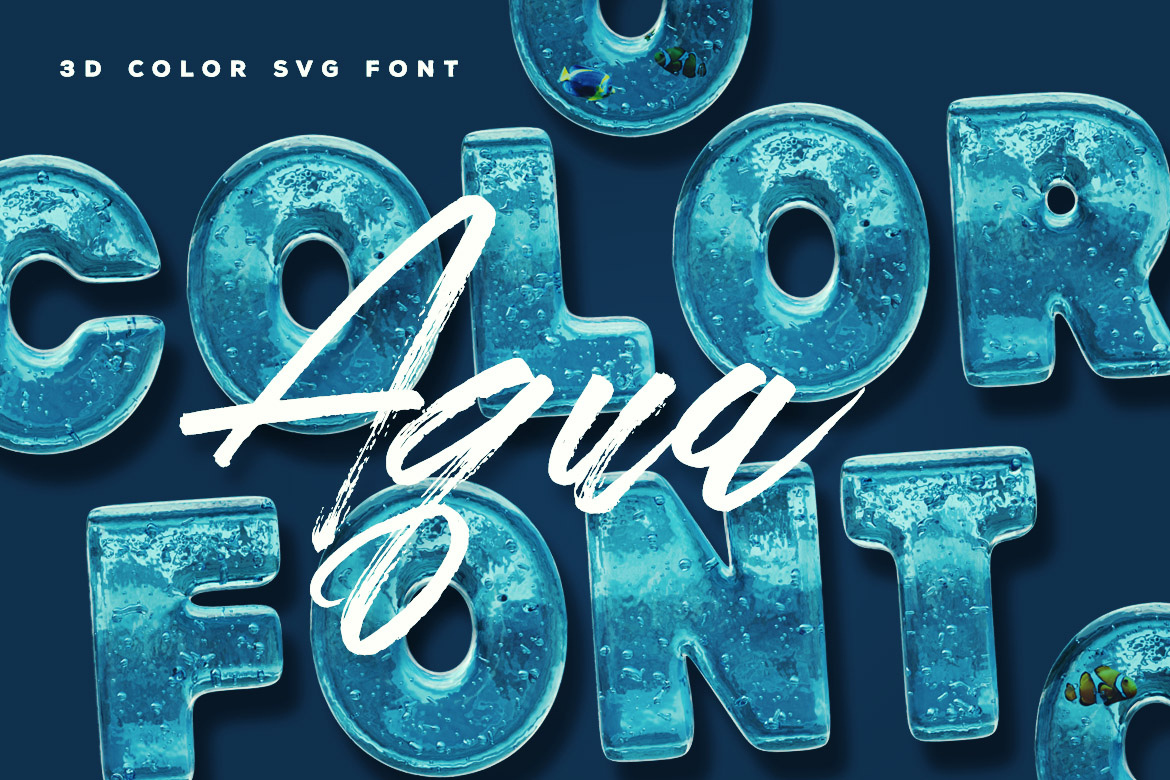
Aqua Color Font
Aqua Color Font is perfect for swimming pool branding, water park marketing, marine aquarium signage, beach resort advertising, water sports equipment packaging, spa and wellness communications, ocean conservation campaigns, and refreshing beverage promotions.
What makes Aqua Color Font exciting is its fluid refreshment that captures the invigorating energy and crystal-clear beauty of pristine waters and aquatic environments. The font features flowing letterforms with liquid curves and translucent character variations that evoke ocean waves, swimming pools, and the refreshing coolness of pure water. Its distinctive aquatic styling and refreshing appeal communicate purity, vitality, and natural refreshment, making every message feel cleansed by crystal waters and energized by the life-giving power of aquatic environments.
The Aqua Color Font family includes regular weight with uppercase and lowercase letters, numerals, punctuation marks, and special characters. Premium versions often feature fluid alternates and water-inspired elements that enhance the aquatic, refreshing aesthetic perfect for water and wellness applications.
The fluid character of Aqua Color Font makes it particularly valuable for water treatment companies, aquatic fitness centers, and marine recreation businesses. Its excellent readability ensures safety information and aquatic messaging remain clear while maintaining the distinctive water-themed aesthetic that appeals to customers seeking refreshing experiences and aquatic adventures.
Aquatic industry marketers appreciate how Aqua Color Font effortlessly conveys water purity and refreshing vitality. The font's flowing proportions and liquid details create invigorating brand materials that establish connections with audiences who value water quality, aquatic recreation, and the refreshing benefits of water-based activities.
The versatile fluidity of this typeface extends to hydration products, water filtration systems, and aquatic therapy where water authenticity enhances health and wellness credibility. Aqua Color Font Free Download provides creative professionals with an essential tool for developing memorable, water-inspired designs that resonate with audiences who embrace aquatic recreation, water wellness, and the refreshing purity of clean water in their health and lifestyle choices.